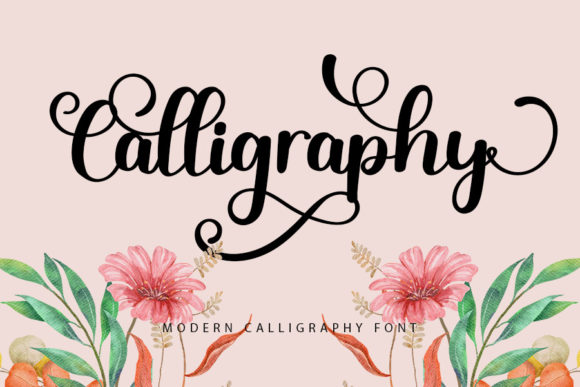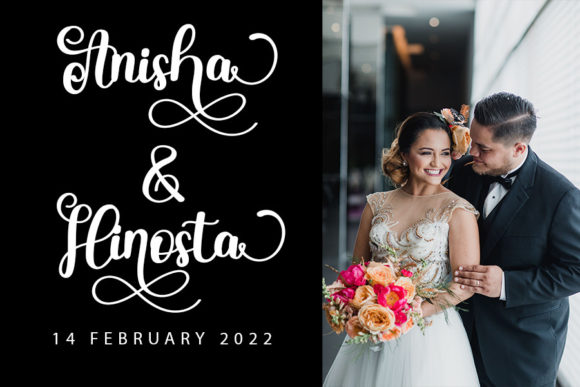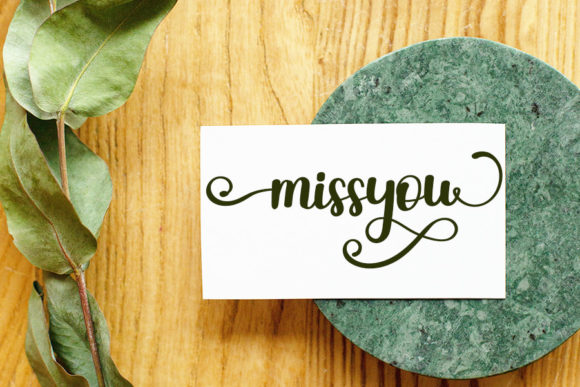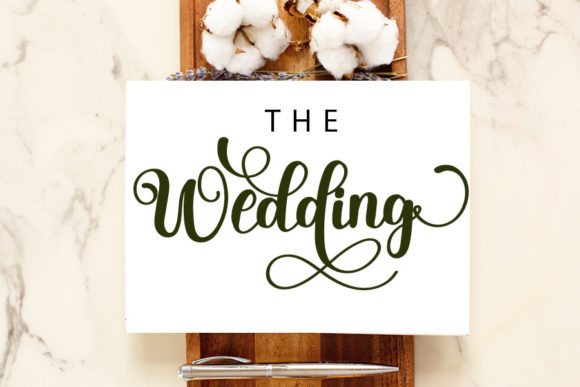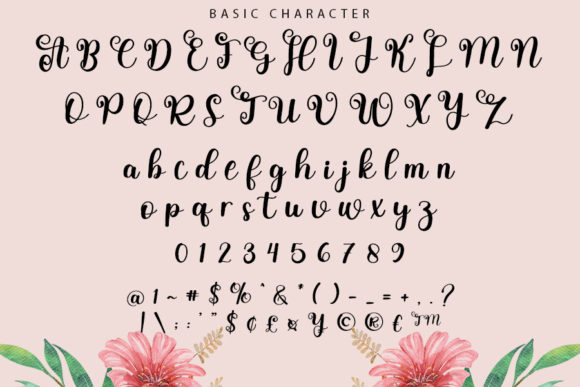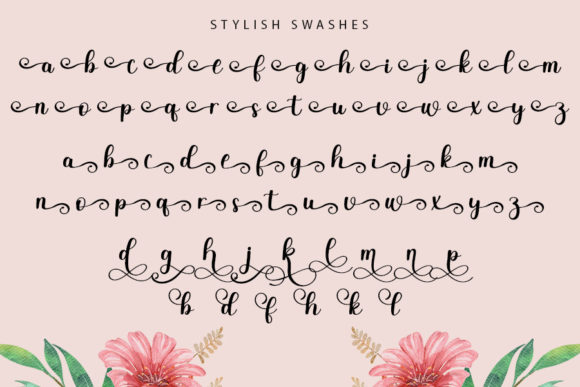
Introducing Aprilia Font: The Ultimate Handwritten Font for Your Business Needs
Are you looking for a beautiful and charming handwritten font to elevate your business designs? Look no further than Aprilia Font! This stunning font is perfect for a variety of business needs, including shirt designs, logos, banners, and more. In this article, we’ll explore the features and benefits of Aprilia Font, and why it’s a must-have for designers and crafters.
A Beautiful and Charming Handwritten Font
Aprilia Font is a gorgeous handwritten font that exudes elegance and sophistication. Its unique and charming style makes it perfect for businesses looking to add a personal touch to their designs. Whether you’re creating a logo, brochure, or social media graphics, Aprilia Font is sure to make your designs stand out.
Suitable for Various Business Needs
Aprilia Font is a versatile font that can be used for a wide range of business needs. Here are some examples:
- Shirt Designs: Create stunning t-shirt designs with Aprilia Font. Its unique style and charm make it perfect for creating eye-catching designs that will appeal to your target audience.
- Logos: Use Aprilia Font to create a beautiful and memorable logo for your business. Its elegant style makes it perfect for businesses looking to create a professional and sophisticated brand image.
- Banners: Create stunning banners with Aprilia Font. Its bold and charming style makes it perfect for creating eye-catching banners that will grab the attention of your target audience.
PUA Encoded for Easy Access to Glyphs and Swashes
Aprilia Font is PUA encoded, which means you can access all of the glyphs and swashes with ease. This feature makes it easy to customize your designs and add a personal touch. With Aprilia Font, you can easily access a wide range of glyphs and swashes to create unique and stunning designs.
The Beauty of Aprilia Font
The beauty of Aprilia Font lies in its unique and charming style. Its elegant and sophisticated design makes it perfect for businesses looking to create a professional and memorable brand image. With Aprilia Font, you can create stunning designs that will make your business stand out in the market.
Why Choose Aprilia Font?
Here are some reasons why you should choose Aprilia Font for your business needs:
- Unique and Charming Style: Aprilia Font has a unique and charming style that makes it perfect for businesses looking to add a personal touch to their designs.
- Versatile: Aprilia Font is a versatile font that can be used for a wide range of business needs, including shirt designs, logos, banners, and more.
- PUA Encoded: Aprilia Font is PUA encoded, making it easy to access a wide range of glyphs and swashes.
In conclusion, Aprilia Font is a beautiful and charming handwritten font that is perfect for businesses looking to elevate their designs. Its unique and charming style, versatility, and ease of use make it a must-have for designers and crafters. With Aprilia Font, you can create stunning designs that will make your business stand out in the market. So why wait? Download Aprilia Font today and take your designs to the next level!